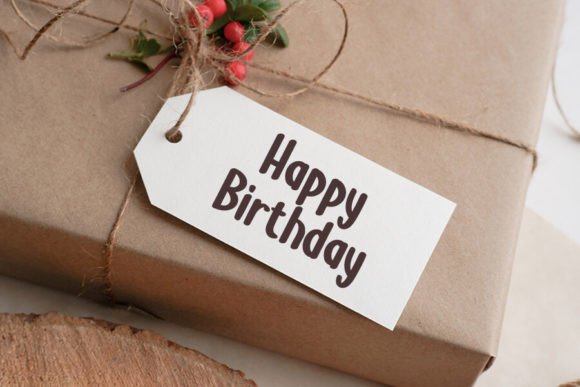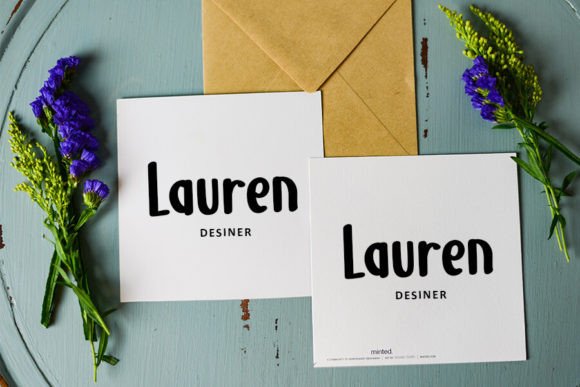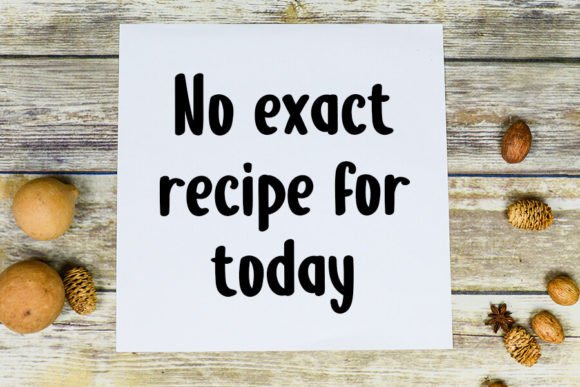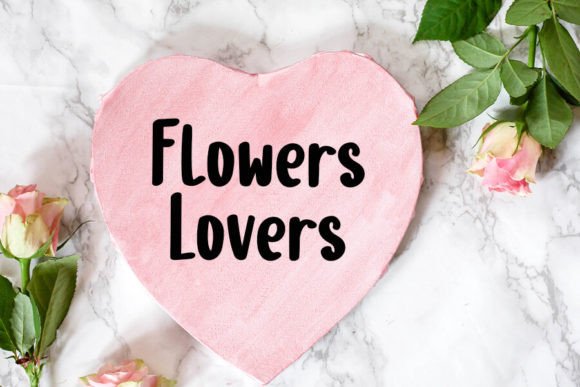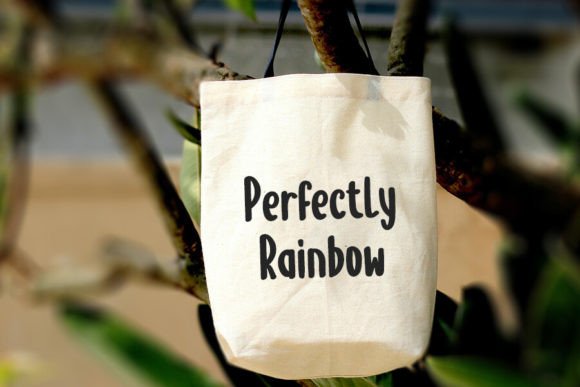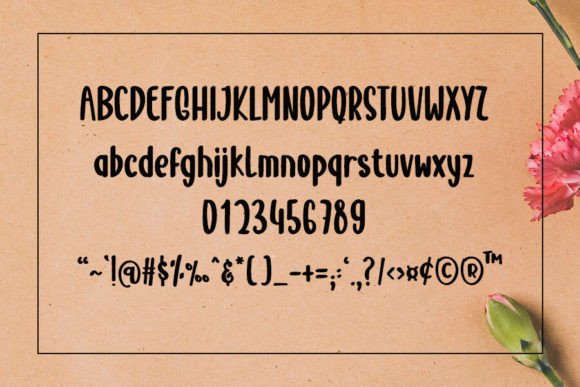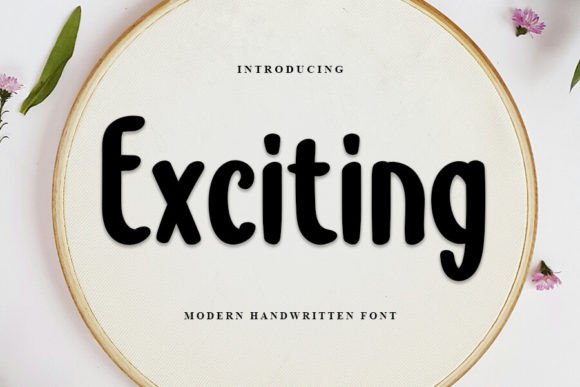
Discover the Charm of Exciting Font: Elevate Your Designs with Elegance
Are you on the hunt for a font that adds a touch of sophistication and whimsy to your projects? Look no further than the Exciting Font, a stunning handwritten typeface that is sure to capture your heart. With its unique blend of elegance and playfulness, this font is perfect for designers and crafters seeking to create visually striking designs that stand out from the crowd.
The Allure of Exciting Font
Exciting Font is a beautifully crafted handwritten font that exudes a sense of refinement and poise. Its incredibly distinct and timeless style makes it an excellent choice for a wide range of projects, from wedding invitations and branding materials to social media graphics and digital art. The font’s elegant strokes and delicate curves create a sense of movement and fluidity, adding a touch of dynamism to any design.
What Makes Exciting Font So Special?
• Unique Character: Exciting Font boasts a one-of-a-kind design that sets it apart from other fonts. Its distinctive style ensures that your designs will be instantly recognizable and memorable.
• Elegant and Refined: The font’s elegant strokes and curves add a touch of sophistication to any design, making it perfect for projects that require a level of refinement.
• Versatile: Exciting Font is incredibly versatile, and can be used for a wide range of projects, from digital designs to print materials.
• Timeless: Unlike trendy fonts that quickly go out of style, Exciting Font’s classic design ensures that it will remain a timeless choice for years to come.
How to Use Exciting Font in Your Designs
Exciting Font is incredibly easy to use, and can be incorporated into your designs in a variety of ways. Here are a few ideas to get you started:
• Wedding Invitations: Add a touch of romance and elegance to your wedding invitations with Exciting Font.
• Branding Materials: Use Exciting Font to create stunning branding materials, such as logos, business cards, and letterheads.
• Social Media Graphics: Elevate your social media graphics with Exciting Font, and make your content stand out from the crowd.
• Digital Art: Experiment with Exciting Font in your digital art projects, and discover new ways to add texture and interest to your designs.
Tips for Getting the Most Out of Exciting Font
To get the most out of Exciting Font, here are a few tips to keep in mind:
• Experiment with Different Sizes: Exciting Font looks great in a variety of sizes, so don’t be afraid to experiment and find the perfect size for your design.
• Play with Color: The font’s elegant design looks stunning in a range of colors, so try experimenting with different hues and shades to find the perfect combination.
• Mix and Match: Don’t be afraid to mix and match Exciting Font with other fonts to create a unique and visually striking design.
In conclusion, Exciting Font is a truly special typeface that offers a unique blend of elegance and whimsy. Its incredibly distinct and timeless style makes it an excellent choice for designers and crafters seeking to create visually striking designs that stand out from the crowd. Whether you’re working on a wedding invitation, branding materials, or digital art project, Exciting Font is sure to elevate your designs and leave a lasting impression.